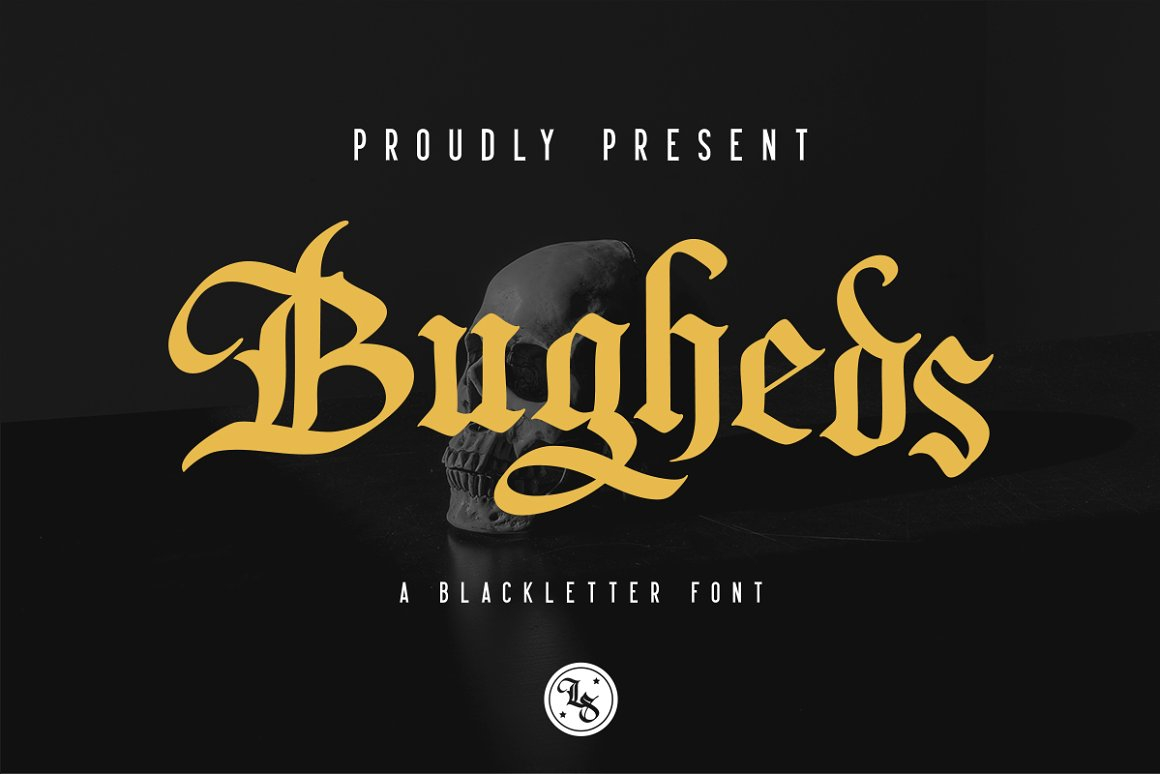
About Bugheds Font
Bugheds is a bold and authentic blackletter font. It looks incredibly adept on a variety of design ideas. Add it confidently and notice how your projects stand out!